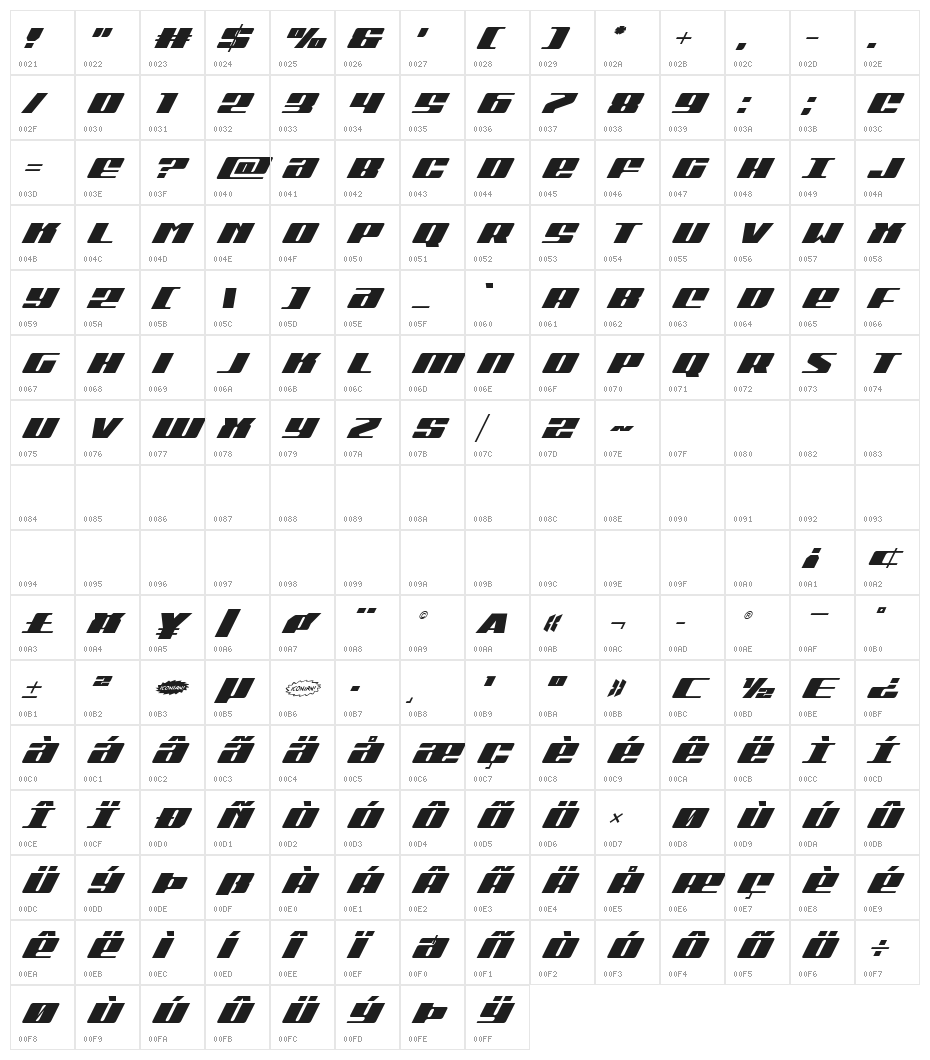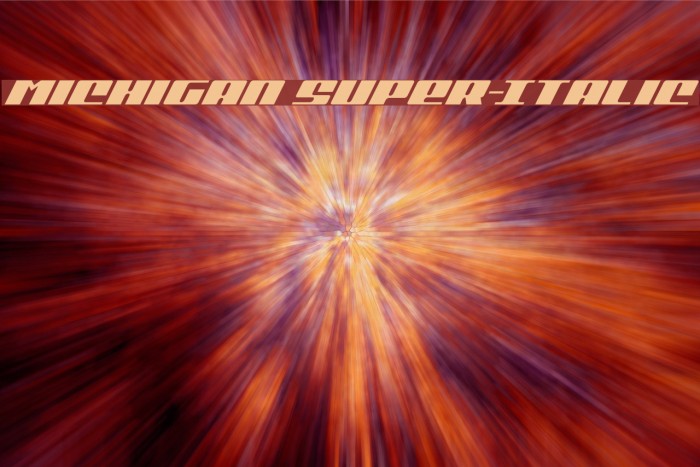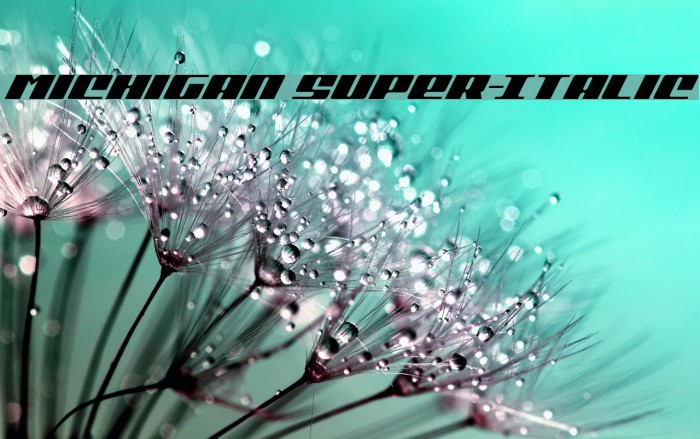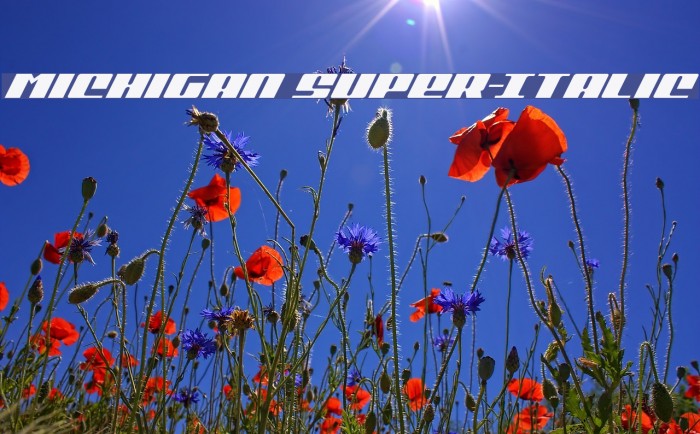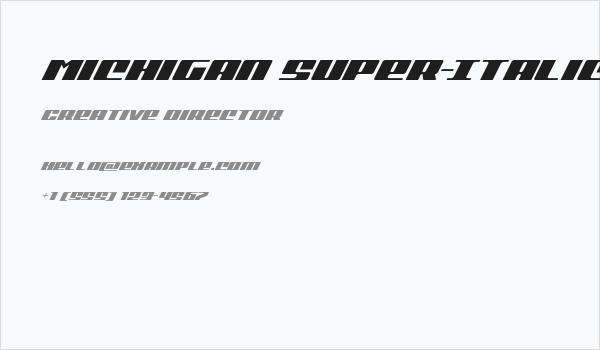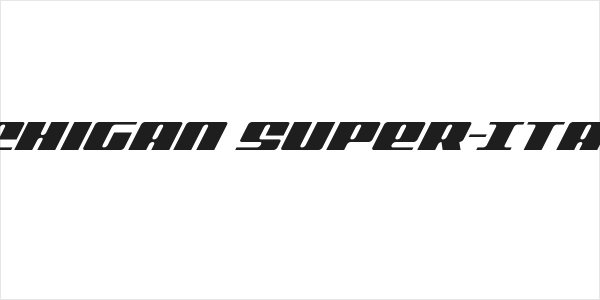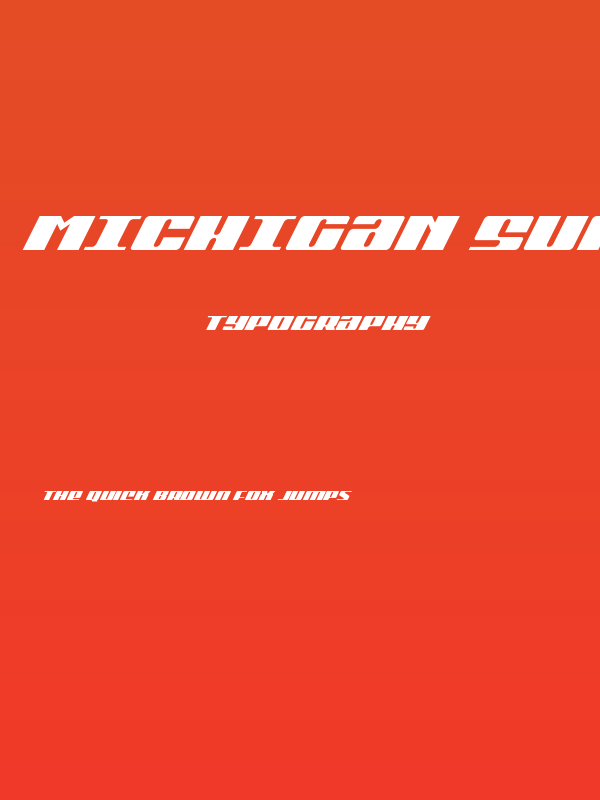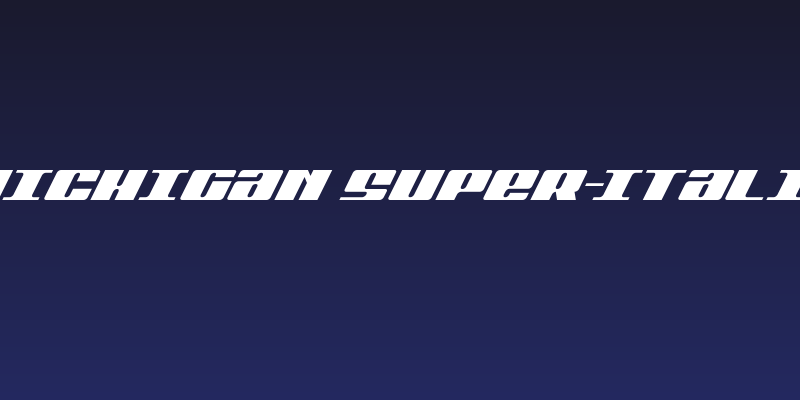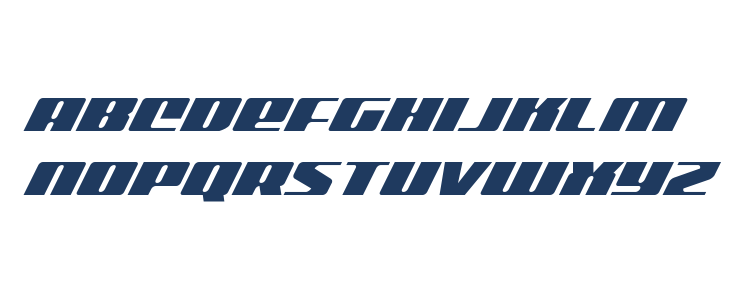
Michigan Super-Italic Font
Michigan Super-Italic Description
This font exhibits a bold and dynamic style with a strong italic slant, giving it a sense of motion and energy. The characters are wide and have a distinct geometric structure, featuring sharp angles and clean lines. The uppercase and lowercase letters maintain a consistent design, while the numerals and special characters integrate seamlessly with the overall aesthetic. The font's boldness and slanted orientation make it ideal for creating impactful and attention-grabbing designs.
| Proposed Projects | Ideal for sports branding, automotive designs, dynamic posters, and modern logos. |